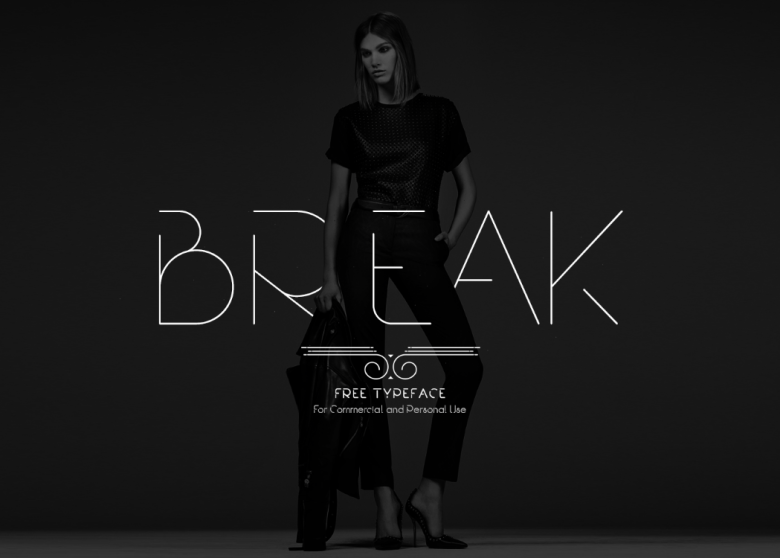
Break Typeface
Break is modern font family contains five weights from Bold to ExtraLight, Uppercase, Lowercase, Numerics and symbols, could be use in variety of projects.